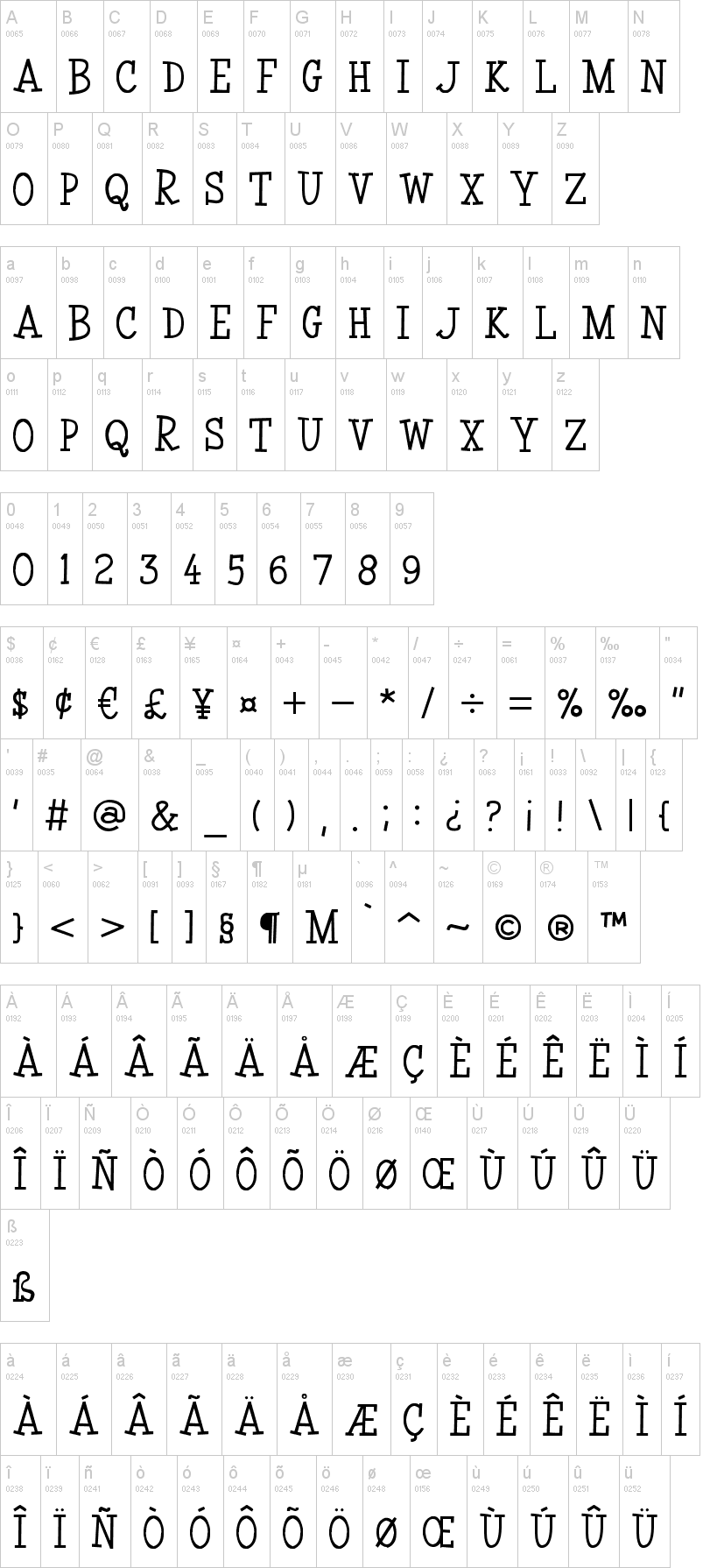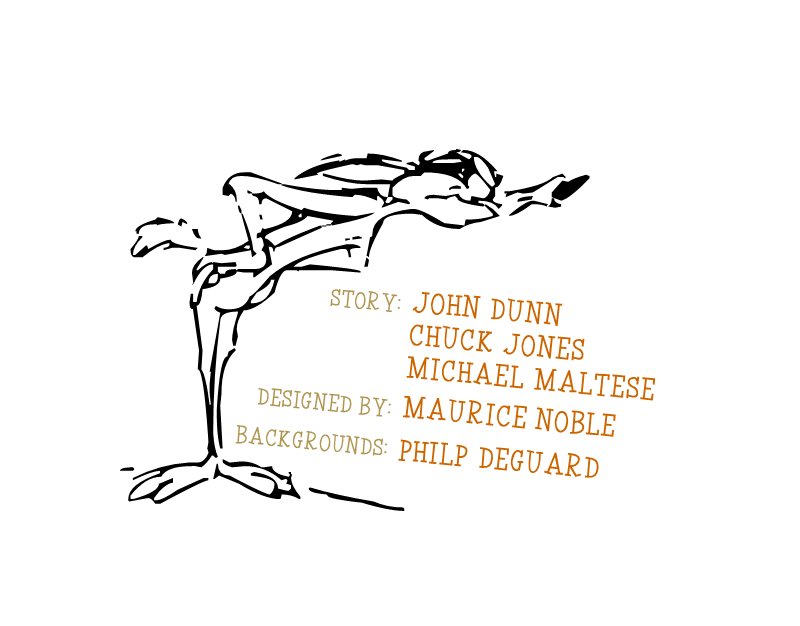
Note of the authorAdventures of the Road-Runner is an animated film, directed by Chuck Jones and co-directed by Maurice Noble and Tom Ray. This font has ripped by nipcen. Thanks! :)